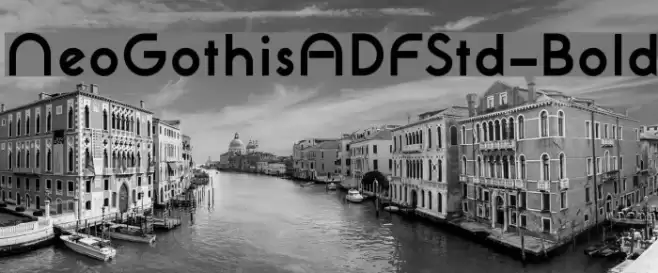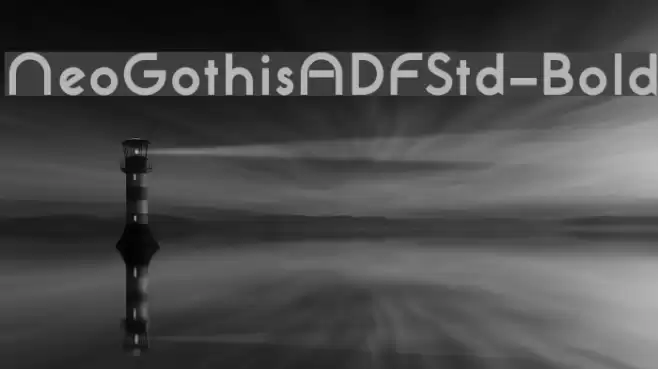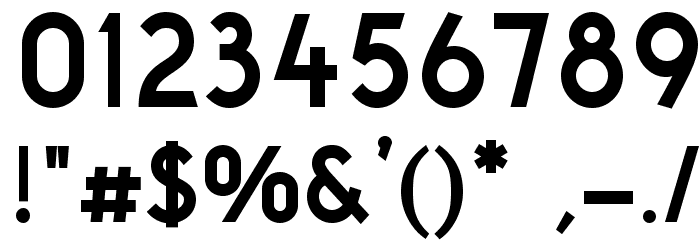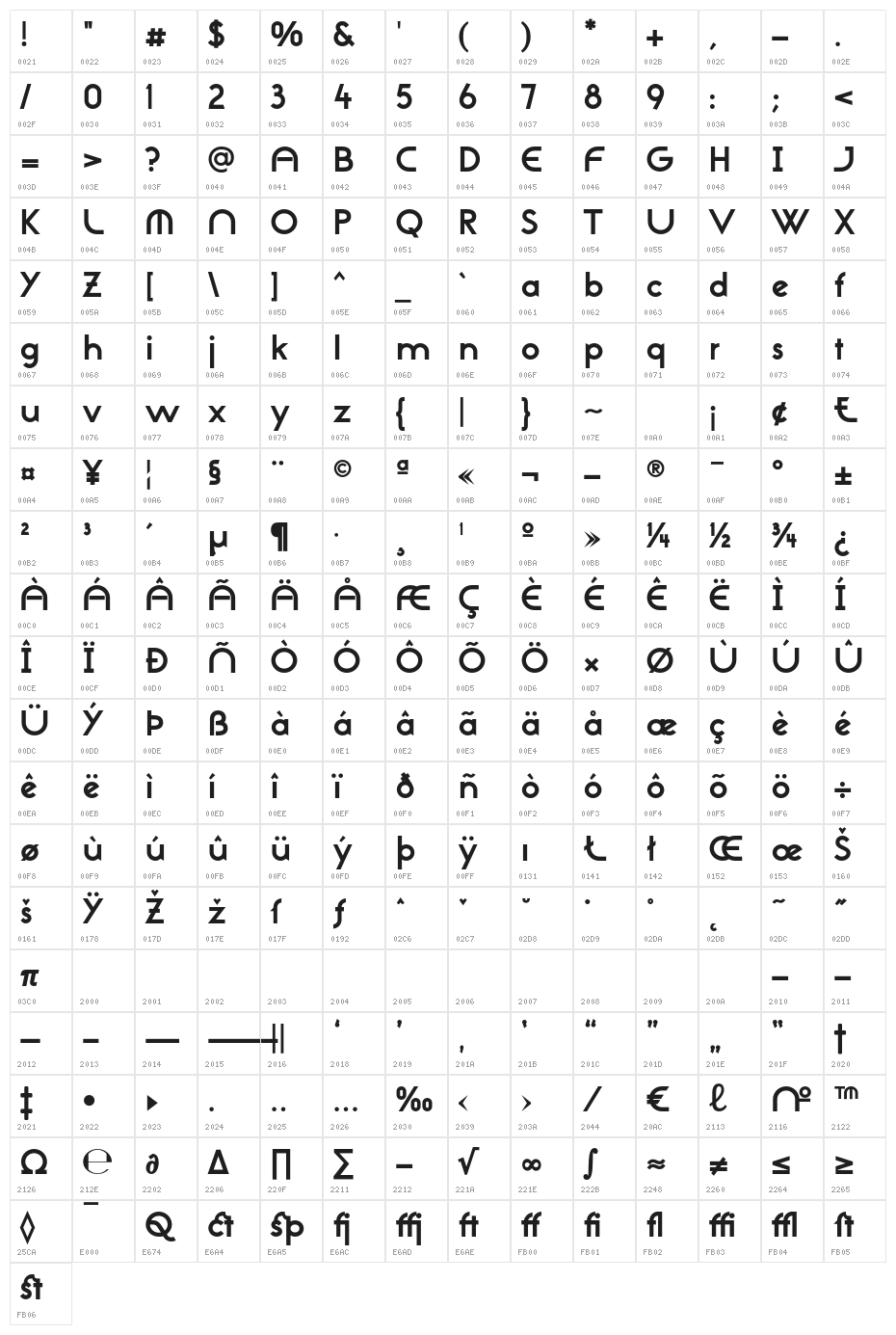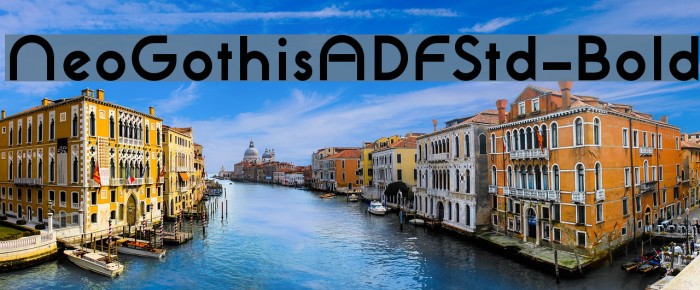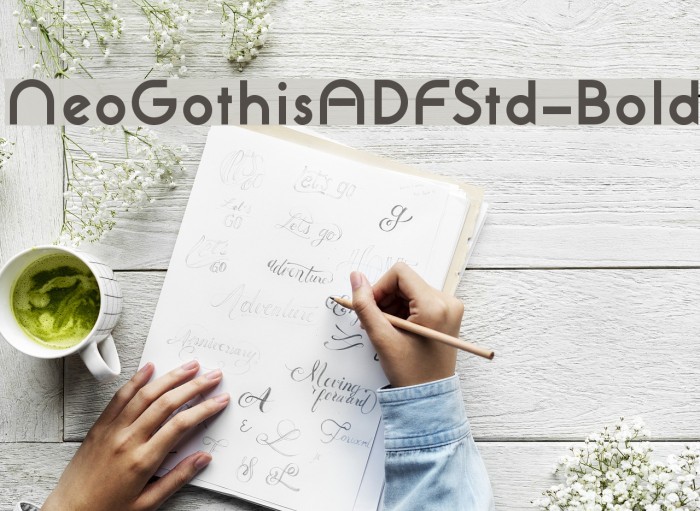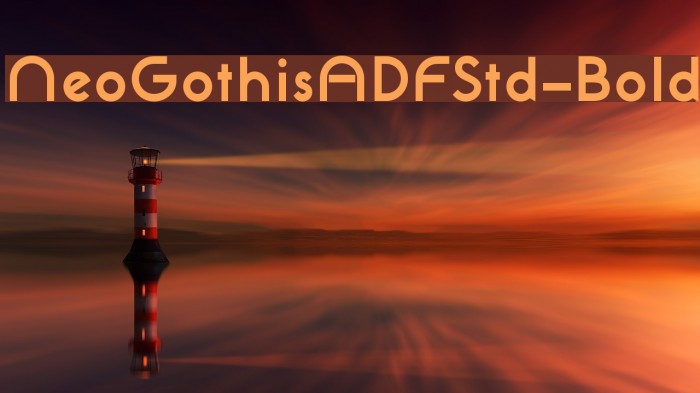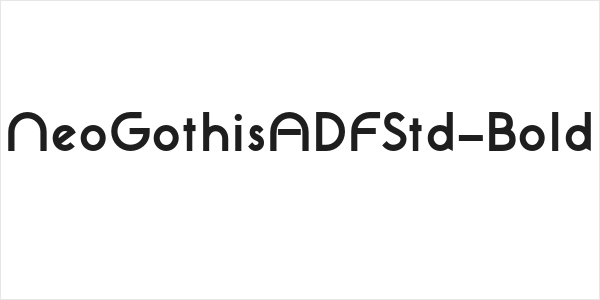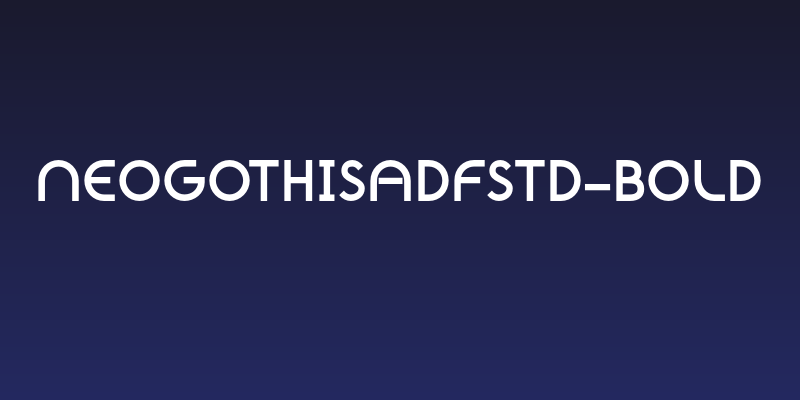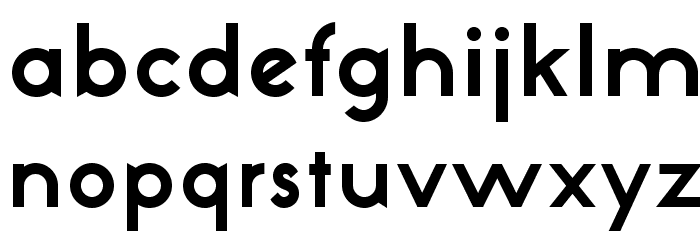
NeoGothisADFStd-Bold Font
NeoGothisADFStd-Bold Description
This font features a bold and clean design with a modern aesthetic. The characters are well-defined with a geometric influence, showcasing smooth curves and straight lines. The uppercase letters are uniform in height, while the lowercase letters maintain a consistent baseline, providing a harmonious look. The numerals are clear and distinct, making them easily readable. Special characters are crafted with precision, adding to the font's versatility. Overall, this font exudes a contemporary and professional feel, suitable for various design applications.
A bold, modern font with geometric influences and clean lines from Uncategorized fonts.
- Proposed Projects: Ideal for branding, advertising, headlines, and digital media projects where a modern and bold statement is needed.
- Use Case: Headlines, Logos, Branding